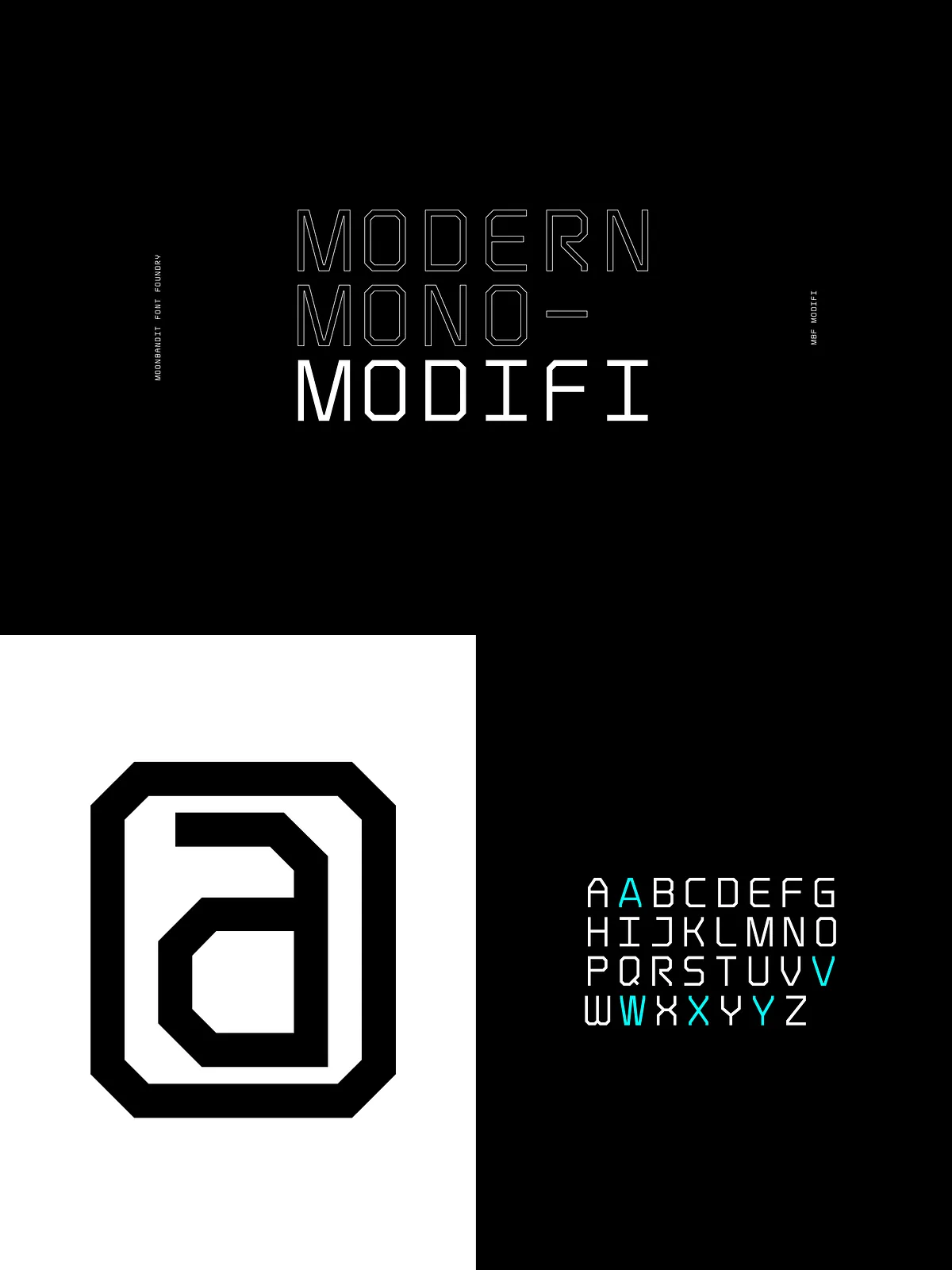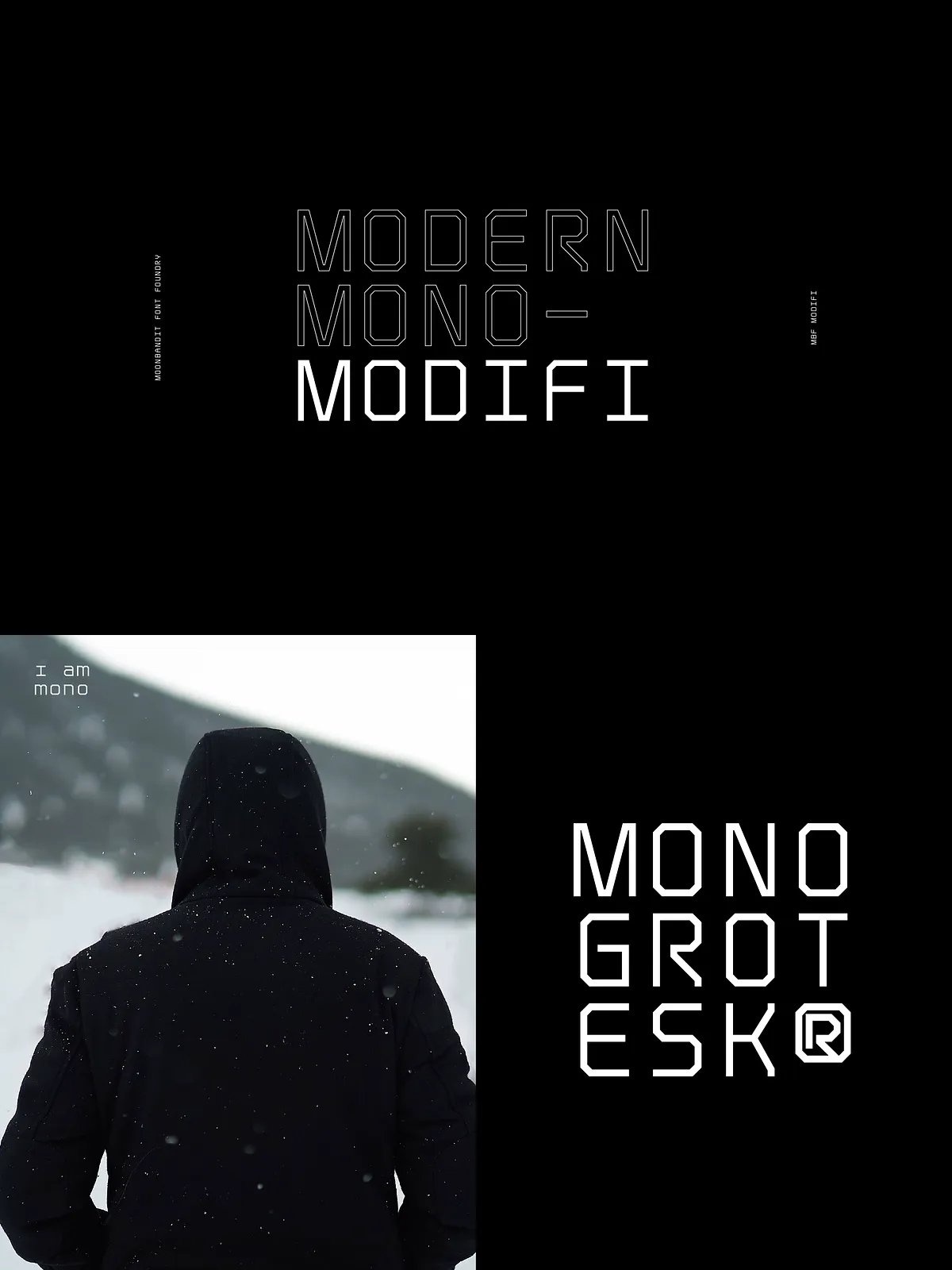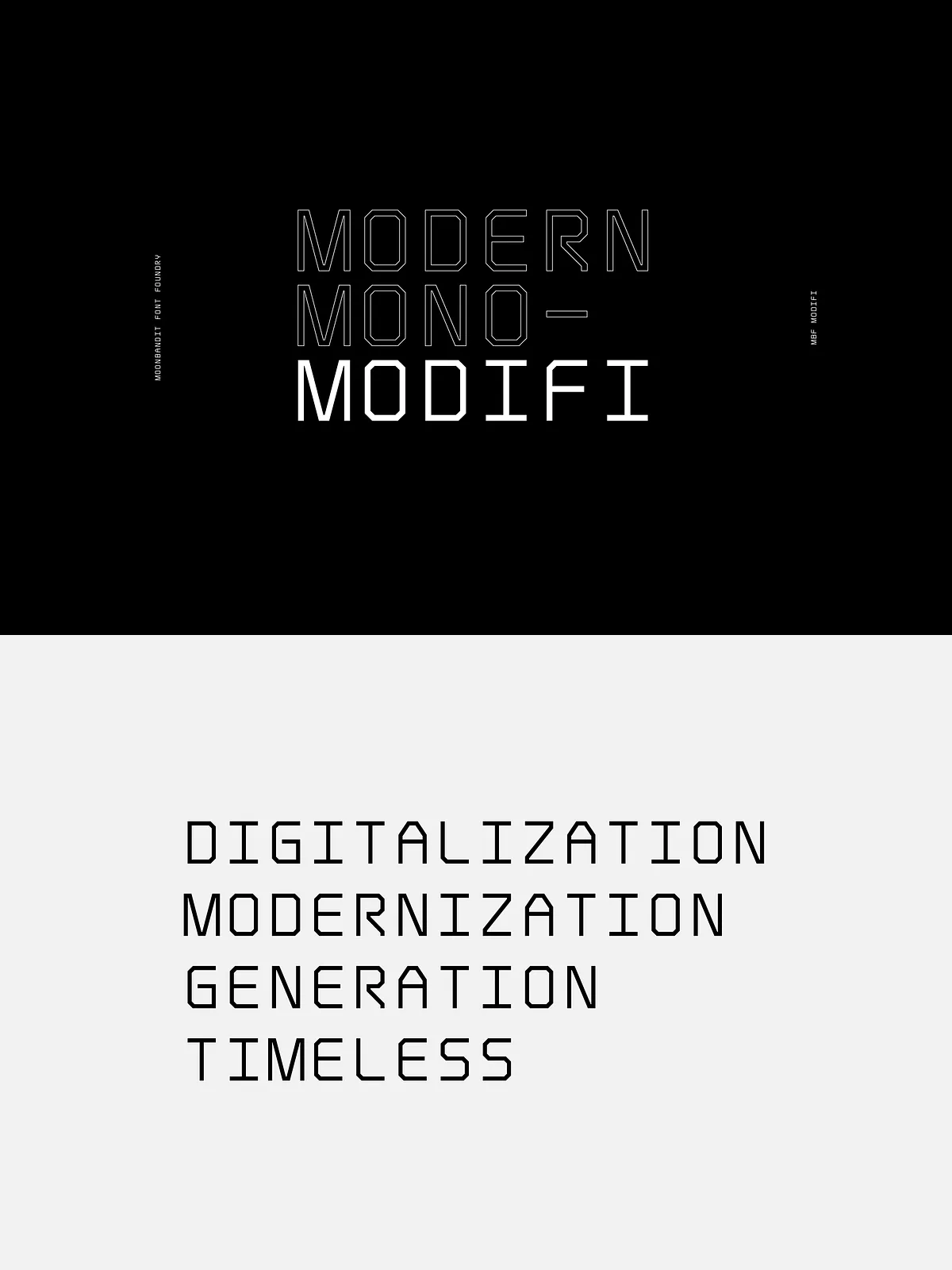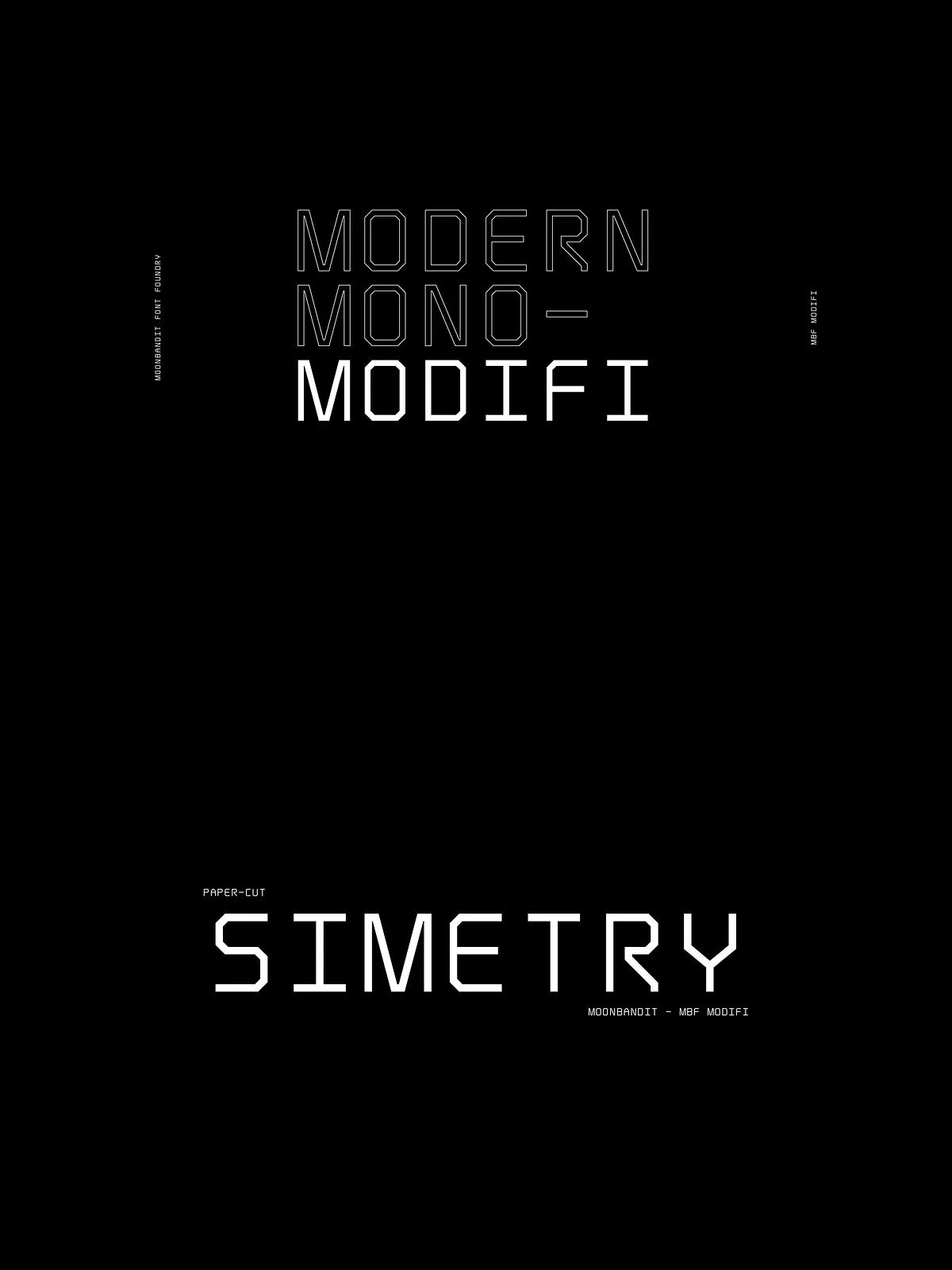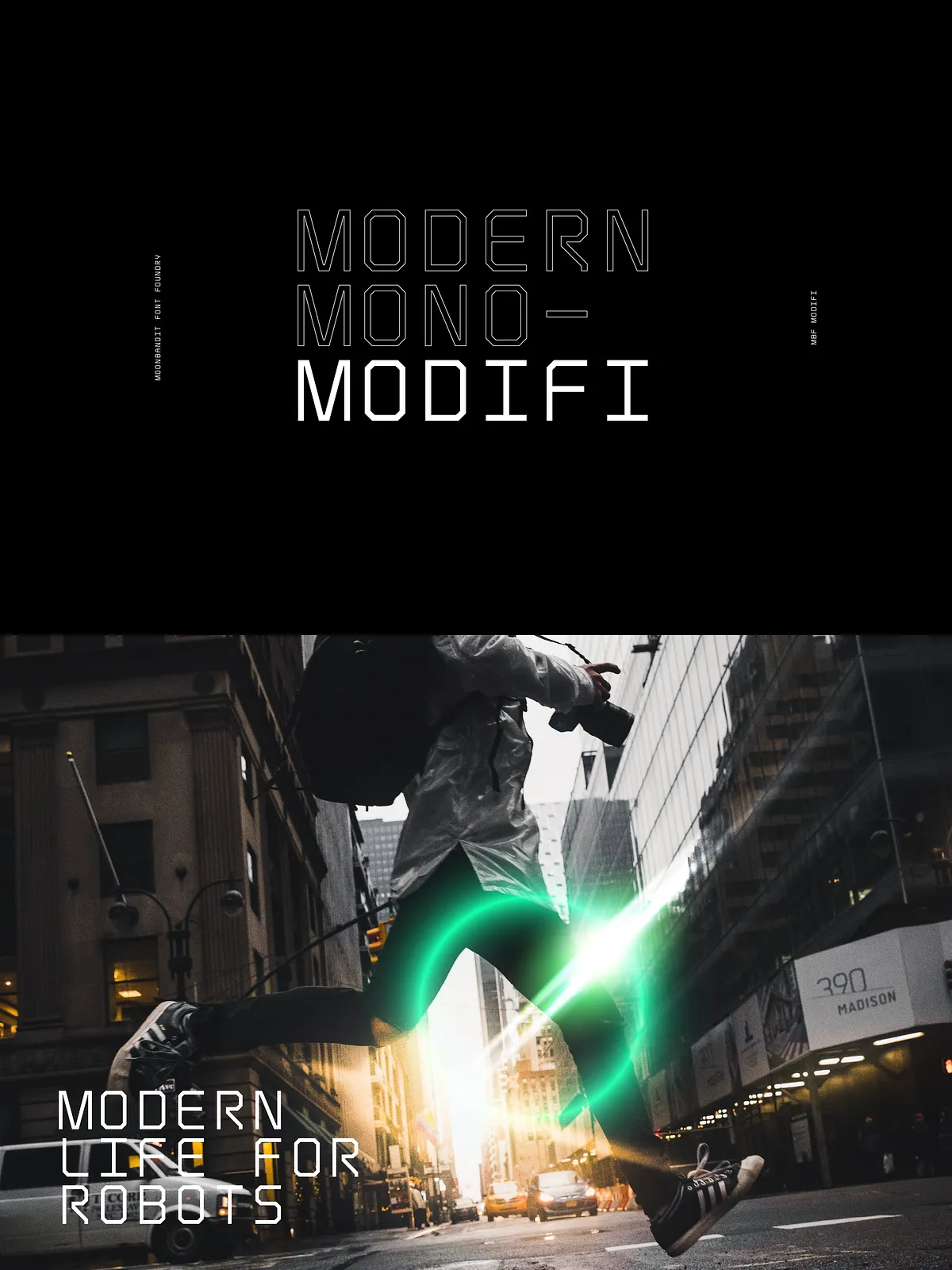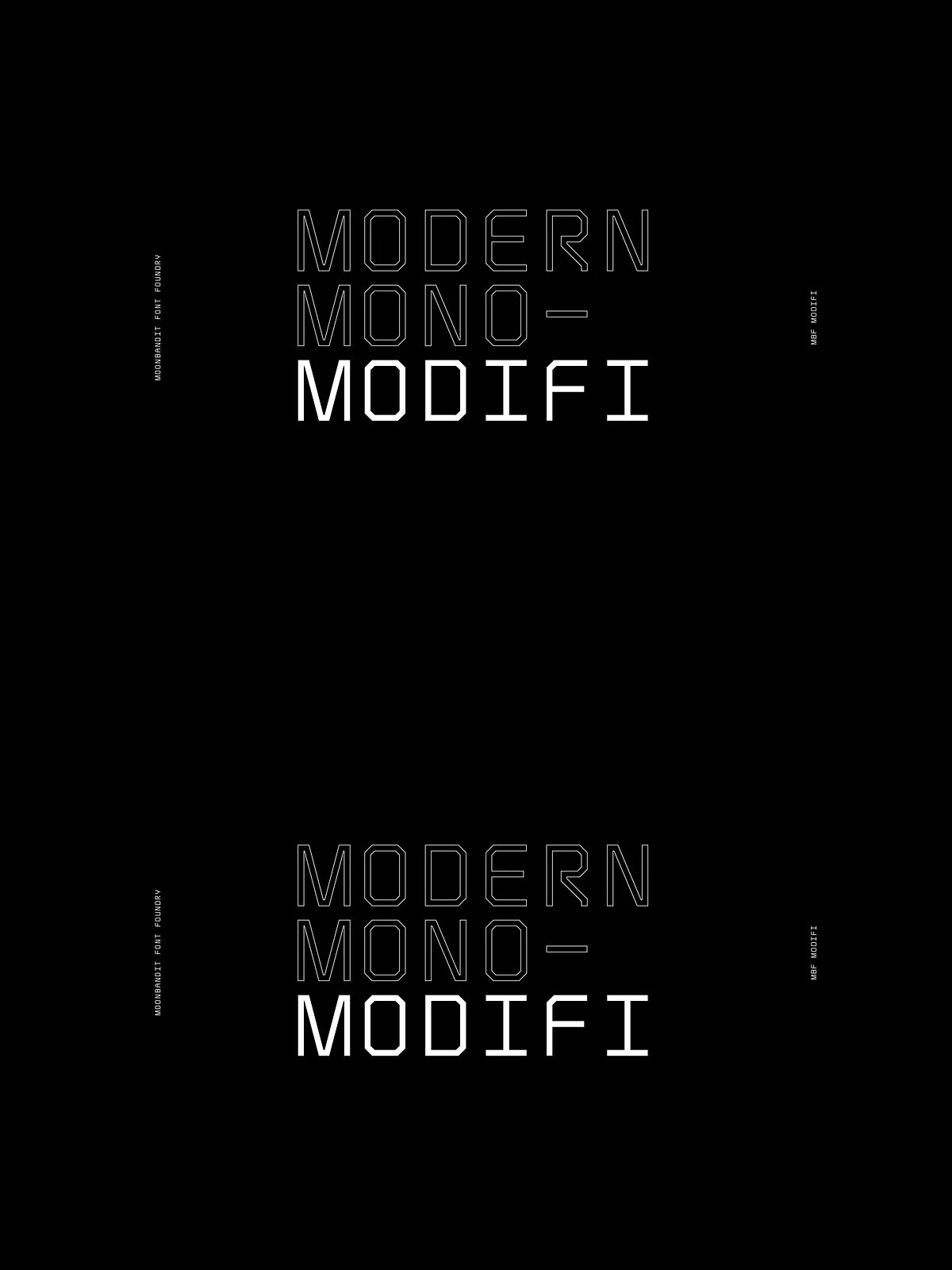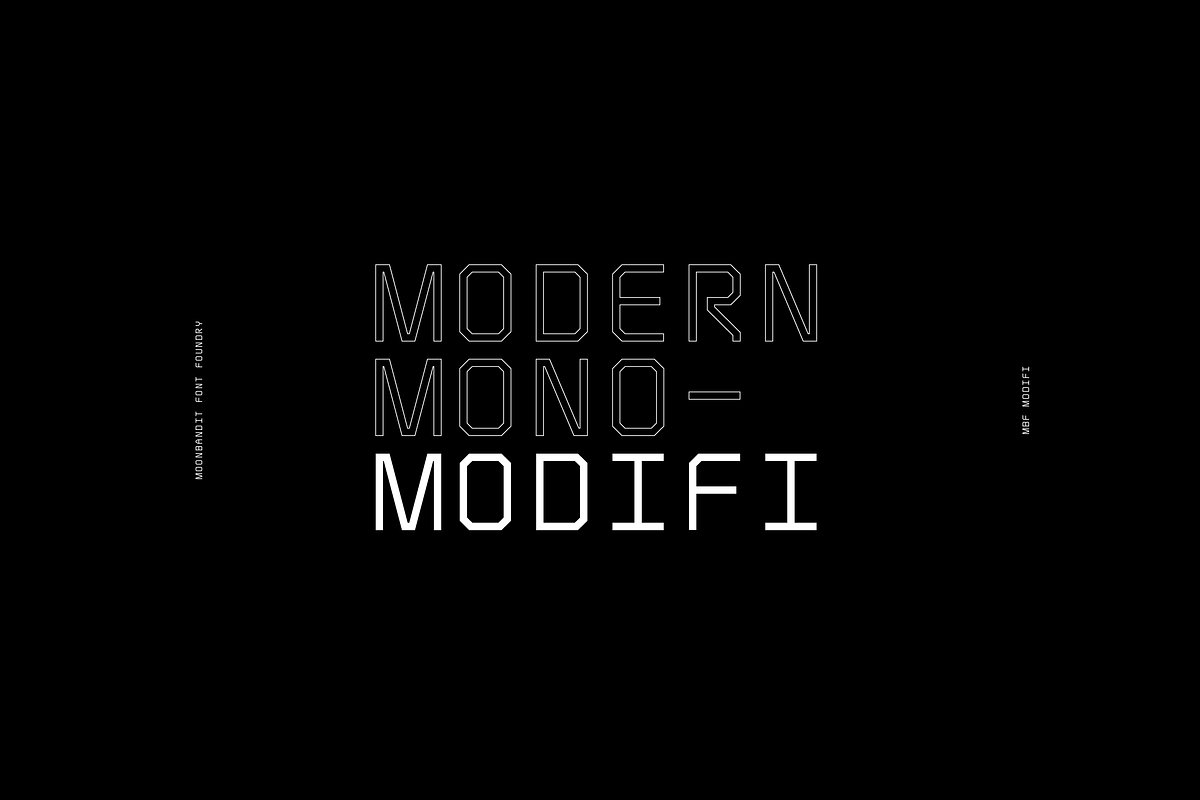
MBF Modifi – Monospace square font
Step into the pulse of contemporary design with Modifi, a modern monospace typeface engineered for clarity, precision, and urban sophistication. Inspired by the stark, minimalist rhythms of digital monotone living—think cityscapes at night, glowing screens, subway time tables, and the silent hum of smart environments—Modifi cuts through visual noise with a sharp, linear presence.
Every character is built with purpose: clean lines, uniform stroke weights, and a tightly structured form that delivers visual consistency across all scales. This isn’t just a font—it’s a design philosophy. Modifi is the visual language of today’s digital identity, where efficiency and elegance coexist without compromise.
Why Modifi is Perfect for Your Next Bold Project
From branding to headlines, from logos to app interfaces, Modifi brings instant gravitas and style. It’s not designed to blend in—**it’s crafted to stand out** with architectural precision and a quiet confidence that commands attention.
• Use Modifi For:
• Branding & Identity: Build a modern, tech-forward brand personality with a font that exudes professionalism and forward-thinking energy.
• Headlines & Titles: Anchor your content with bold, legible headlines that dominate the page without clutter.
• Logo Design: Create logotypes that feel contemporary, scalable, and instantly memorable—perfect for startups, digital services, or creative studios.
• UI & Web Design: Implement interface elements like buttons, form labels, and navigation bars with consistent, readable typography.
• Minimalist Packaging: Elevate product design with a font that whispers sophistication and urban edge.
• Typography Art & Visual Storytelling: Use its structural strength to build dynamic layouts and striking visual compositions.
Power Your Creativity with Built-in Flexibility
Modifi goes beyond basic character sets. It includes a suite of stylistic alternates—subtle variations of letters and numbers that give you creative control without breaking consistency. Use them to subtly differentiate elements, add rhythm to text blocks, or create visual interest in branding systems.
It renders crisply at large sizes, maintains legibility at small text, and scales effortlessly across resolutions. No pixelation. No distortion. Just clean, digital precision—every time.
Make Your Design Bold, Clear, and Unmistakably Modern
There’s power in simplicity. There’s authority in uniformity. And with Modifi, you get both.
It’s not just a typeface. It’s a design statement. A symbol of clarity in a chaotic world. A digital signature for brands that refuse to compromise.